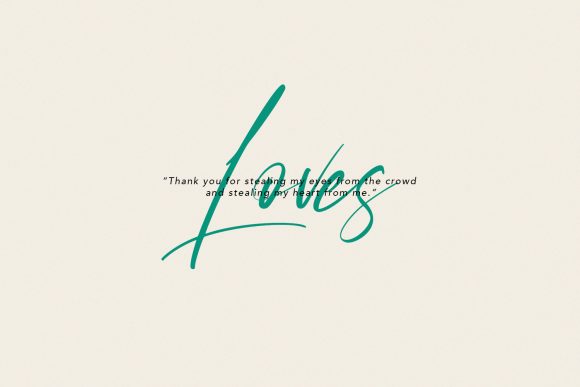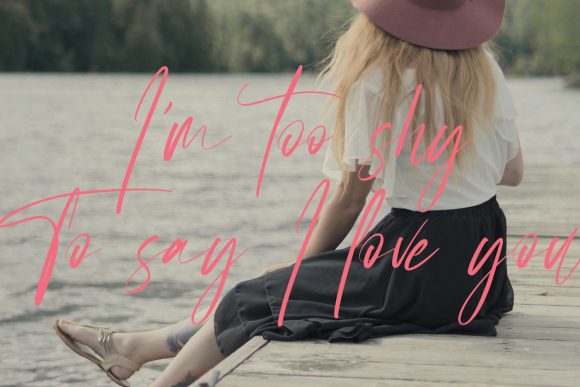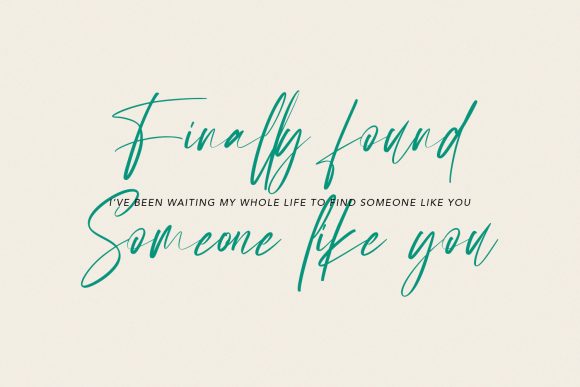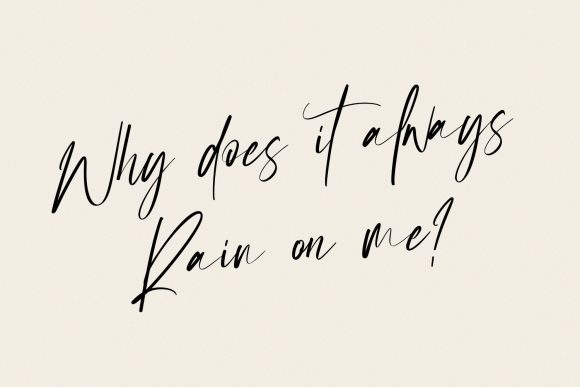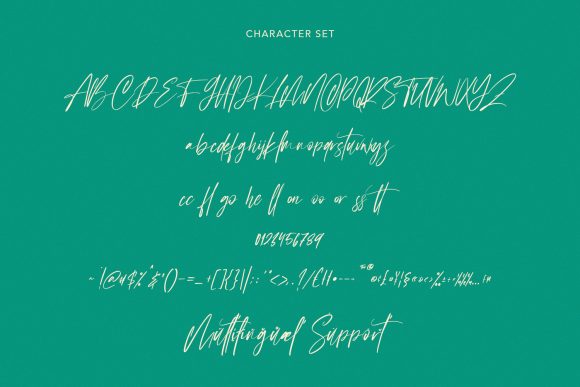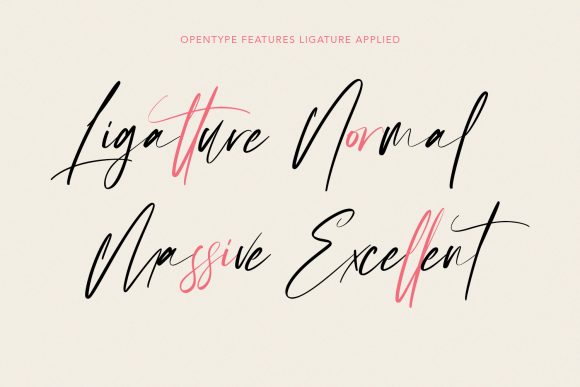
Introducing Corestairs Font: Elevate Your Designs with Elegance
Are you tired of using the same old fonts in your designs? Look no further than Corestairs Font, a stunning script font that adds a touch of sophistication and class to any project. With its delicate and balanced look, Corestairs is the perfect choice for designers and crafters looking to elevate their work.
The Story Behind Corestairs Font
Corestairs Font was designed with one goal in mind: to create a font that is both elegant and versatile. The designers behind Corestairs wanted to create a font that would not only look great but also be easy to read and use in a variety of contexts. After careful consideration and attention to detail, Corestairs was born – a font that is neither too thin nor too thick, but perfectly balanced and varied.
What Makes Corestairs Font So Special?
So, what sets Corestairs apart from other fonts? Here are just a few features that make it a standout:
• Elegant Script Style: Corestairs features a beautiful script style that is perfect for adding a touch of sophistication to your designs.
• Delicate and Classy Look: The font’s delicate and classy look makes it perfect for use in a variety of projects, from wedding invitations to luxury branding.
• Balanced and Varied: Corestairs is designed to be balanced and varied, making it easy to read and use in different contexts.
• Perfect for Body Text and Headings: Whether you need a font for body text or headings, Corestairs is up to the task.
Who Can Benefit from Using Corestairs Font?
Corestairs Font is perfect for a wide range of designers and crafters, including:
• Graphic Designers: Whether you’re working on a branding project, creating a logo, or designing a brochure, Corestairs is a great choice.
• Wedding and Event Planners: Add a touch of elegance to your wedding invitations, programs, and other event materials with Corestairs.
• Crafters and Scrapbookers: Use Corestairs to add a personal touch to your scrapbooking and crafting projects.
• Web Designers: Corestairs can add a touch of sophistication to your website designs, making them stand out from the crowd.
Tips for Using Corestairs Font
Here are a few tips for getting the most out of Corestairs Font:
• Pair it with a Sans Serif Font: Pair Corestairs with a sans serif font for a classic and elegant look.
• Experiment with Different Sizes: Don’t be afraid to experiment with different sizes to find the perfect fit for your project.
• Use it for Headings and Titles: Corestairs is perfect for use in headings and titles, adding a touch of elegance to your designs.
In conclusion, Corestairs Font is a beautiful and elegant script font that can add a touch of sophistication to any project. With its delicate and balanced look, Corestairs is perfect for designers and crafters looking to elevate their work. Whether you’re working on a branding project, creating a logo, or designing a wedding invitation, Corestairs is a great choice. So why not give it a try and see the difference it can make?